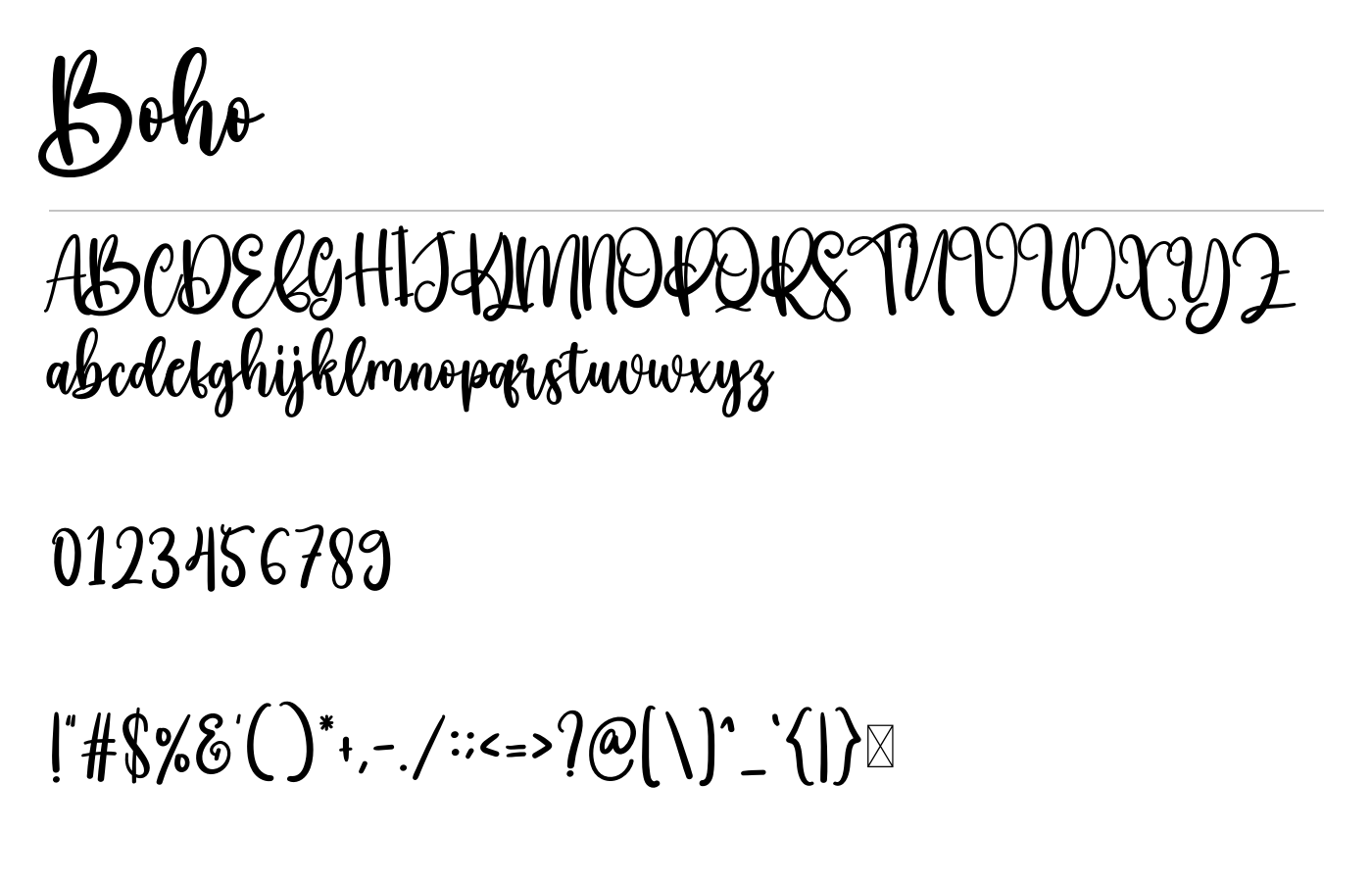
Boho Font is a charming and playful script typeface with a casual, hand-drawn feel. It features lively, flowing letterforms with moderate contrast, a mix of tall uppercase characters and friendly lowercase shapes, making it ideal for adding a warm, personal touch to creative projects like branding, invitations, and social media graphics. Its distinctive style lends well to designs that seek an approachable, artistic vibe with a modern bohemian flair.
Boho Font
About Boho Font